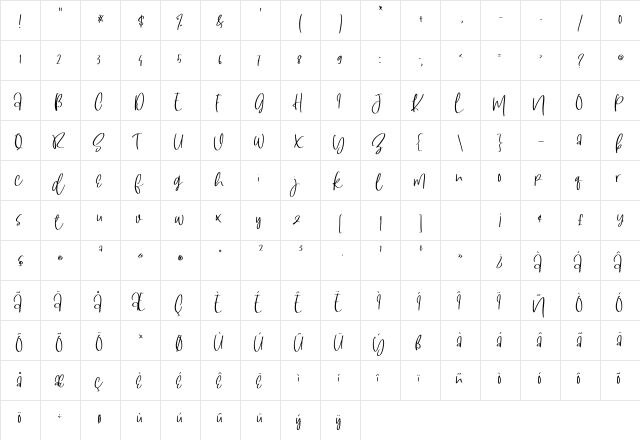
South Dreamers Alternate Regular
Design Context for South Dreamers Alternate Typeface
South Dreamers Alternate is a composed and adaptable typeface that performs quietly and consistently across a wide range of design contexts.